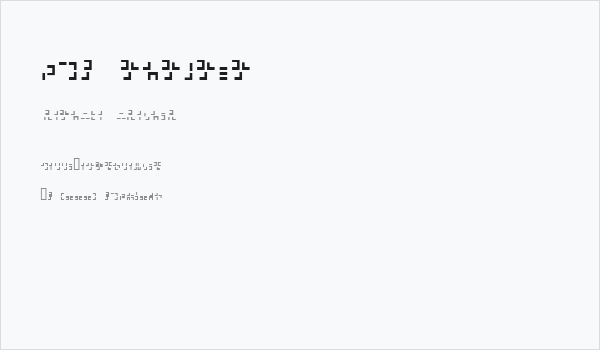
321 Katakana Font
321 Katakana Description
This font features a bold and geometric style, reminiscent of digital or pixelated designs. The characters are constructed with sharp angles and straight lines, giving it a futuristic and tech-inspired appearance. The uniformity in stroke width across all characters contributes to a cohesive and structured look. This font is particularly striking due to its blocky and modular nature, making it ideal for digital displays or environments where a modern, technological aesthetic is desired. The characters are evenly spaced, ensuring readability while maintaining a compact form. Its distinctive style is both eye-catching and functional, suitable for a variety of creative applications.
| Proposed Projects | Ideal for digital displays, tech-themed designs, video game interfaces, and futuristic branding. |